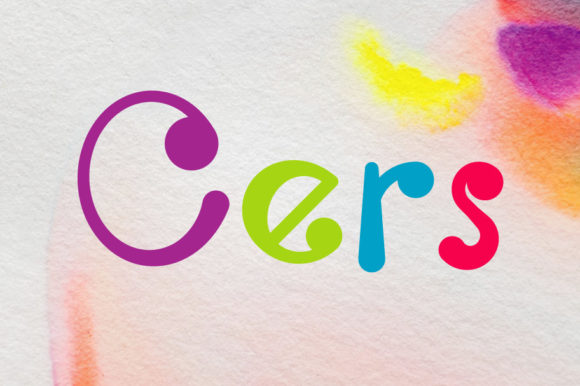
Get ready to add a touch of magic to your creative projects with the enchanting Cers display font, a masterpiece crafted by the talented Muhammadfaisal40. This font is not just a collection of letters; it's a gateway to a world where imagination and fun collide.
Cers is like a playful dance of characters, each one brimming with personality and charm. Its whimsical curves and cheerful strokes create a visual symphony that will captivate your audience and leave a lasting impression. Whether you're designing a children's book, creating eye-catching posters, or crafting unique greeting cards, Cers will transform your words into a visual feast.
With Cers, you'll embark on a creative journey where your imagination knows no bounds. Its versatility shines through in a myriad of applications, from enchanting websites to vibrant social media posts. Let Cers be your muse as you weave tales of wonder and ignite smiles wherever your designs go.